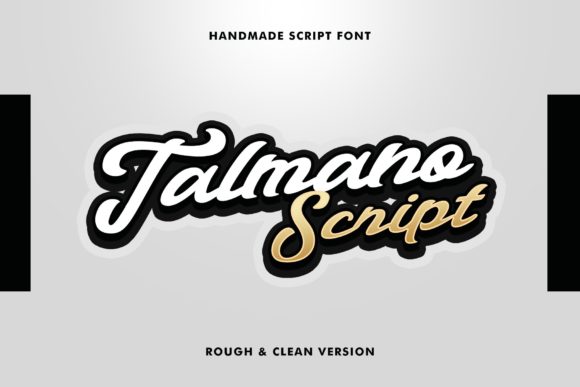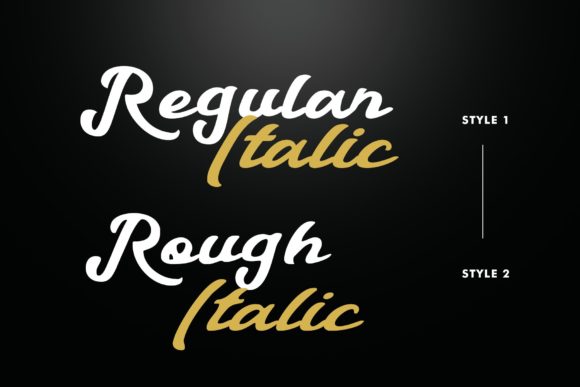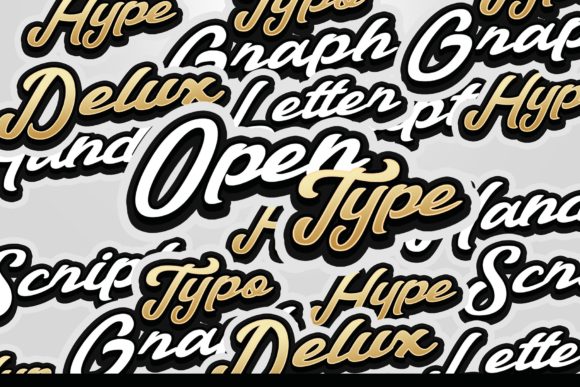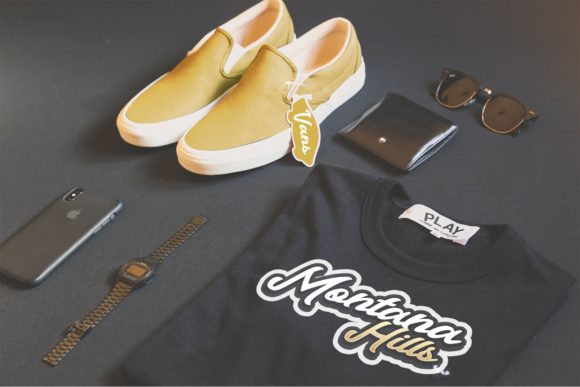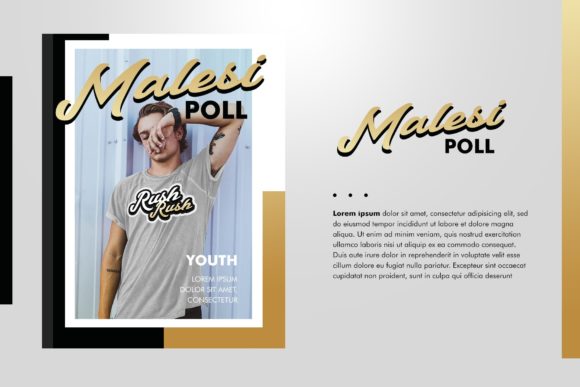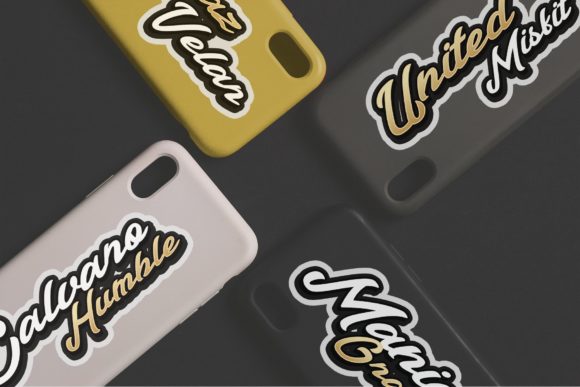
HomeScript FontsTalmano Font Script Fonts Talmano Font FacebookXPinterestWhatsApp Talmano Font Poster 2 Talmano Font Poster 3 Talmano Font Poster 4 Talmano Font Poster 5 Talmano Font Poster 6 About Talmano Font Talmano is a powerful and unique script with a vintage look. DOWNLOAD ON CREATIVE FABRICAThis font is sold and delivered by Creative Fabrica. Font Canyon may earn a commission if you buy through this link. People also explored Helena Bloom Font Hoppipola Font Butterfly Font Star Font Spring Alone Font Soluto Font Heatscript Font Cassablanka Font Simple Wednesday Font 321 0 TagsTalmano Font Previous articleSnowbay FontNext articleBettra Amluga Font LEAVE A REPLY Cancel reply Comment: Please enter your comment! Name:* Please enter your name here Email:* You have entered an incorrect email address! Please enter your email address here Website: Save my name, email, and website in this browser for the next time I comment. Personal Use Free Zalitta Personal Use Free Read more about this font Kellana Personal Use Free Read more about this font The Most Beautiful Gift Personal Use Free Read more about this font Kensin Personal Use Free Read more about this font BLOG Using Fonts in Digital Marketing: Tips to Strengthen Your Brand Identity In the realm of digital marketing, every visual element plays a crucial role in shaping a brand's identity, and fonts are no exception. The... Transform Your Website: Elevate Your Typography with 7 Best Web Font Generators Fonts That Capture the Spirit of New York City How to Cut Any Font on Cricut: Convert a Font to SVG (Free)